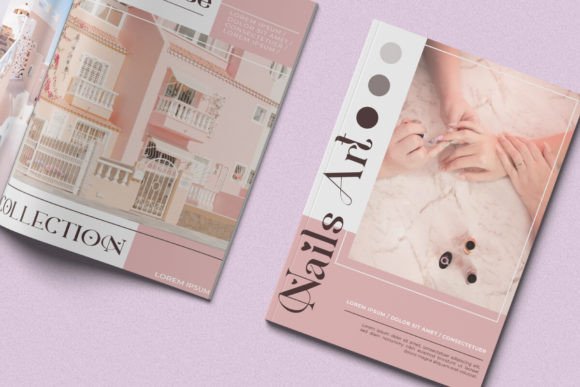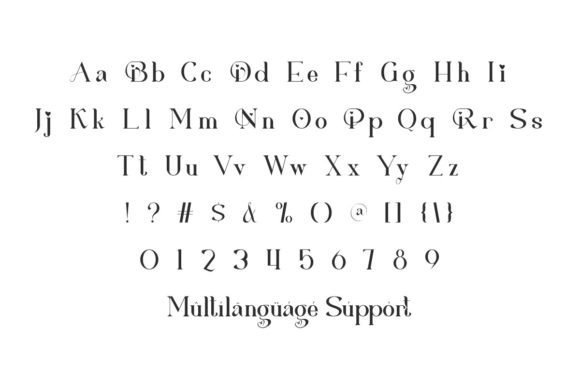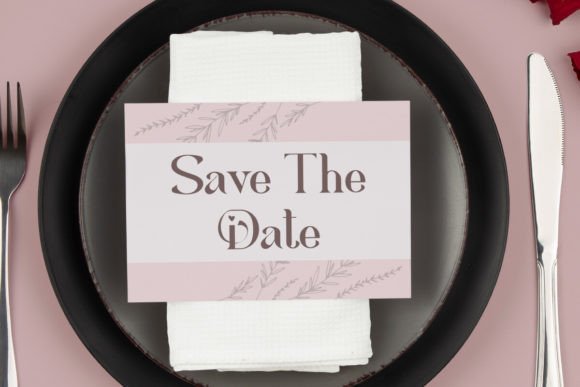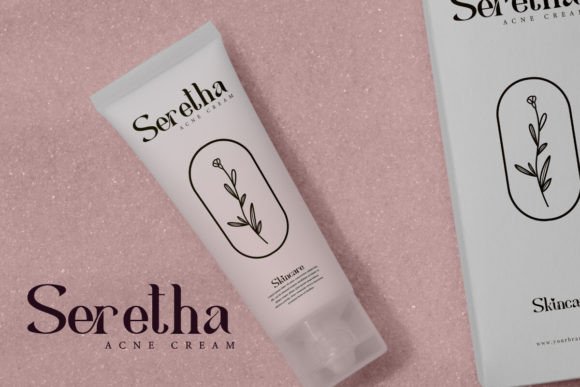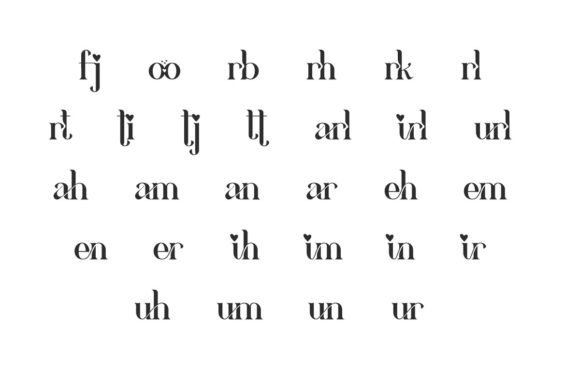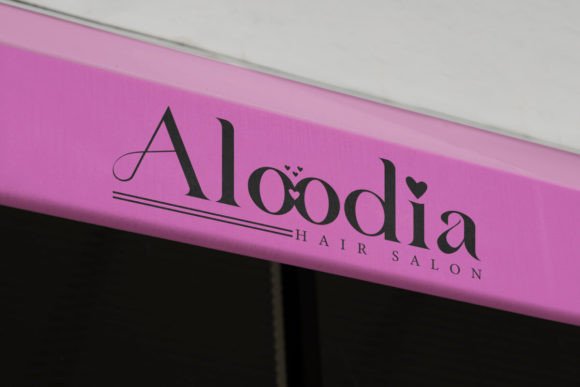
Introduction to Darling Girl Font Font
Fonts play a crucial role in design, and the Darling Girl Font font is a typeface that brings both character and versatility to any project. Whether you’re working on a branding project, a website, or a print design, the Darling Girl Font font offers a unique style that can elevate your work.
Darling Girl Font is a sweet decorative serif display font with the theme of love in it.
It will be able to elevate your designs to a high level, such as billboards, brand logos, brochures, business cards, greeting cards, headers, invitations, labels, magazine catalogs, mockup designs, posters, product packaging, quote, screen print, signage, stationery, sticker, title, website, etc .
Key Features of Darling Girl Font Font
Why Choose Darling Girl Font Font?
The Darling Girl Font font is more than just a typeface – it’s a design tool that helps you communicate your message with style and clarity. Its unique character set and versatile design make it suitable for a wide range of applications, from elegant invitations to bold headlines.
With its carefully crafted letterforms and balanced proportions, the Darling Girl Font font ensures readability and visual appeal across all mediums.
What makes Darling Girl Font font special?
The Darling Girl Font font stands out with its unique design, exceptional readability, and versatility across various design applications.